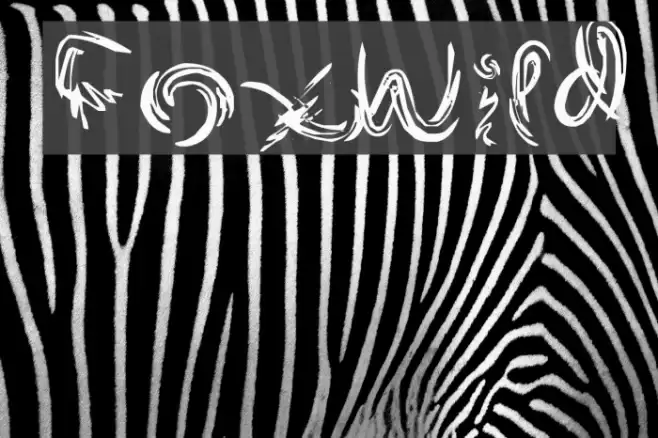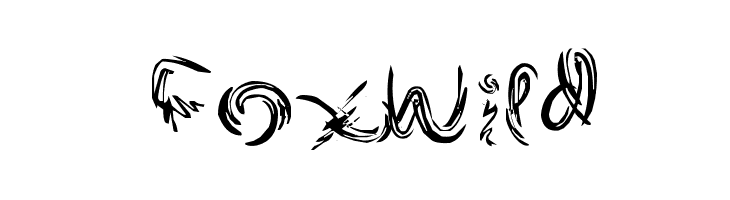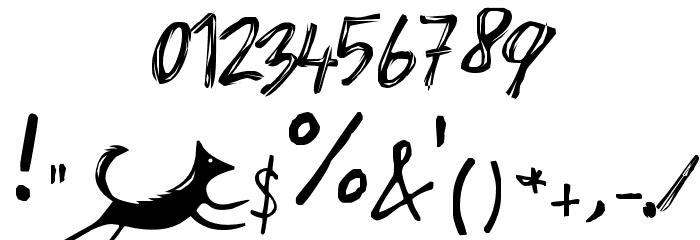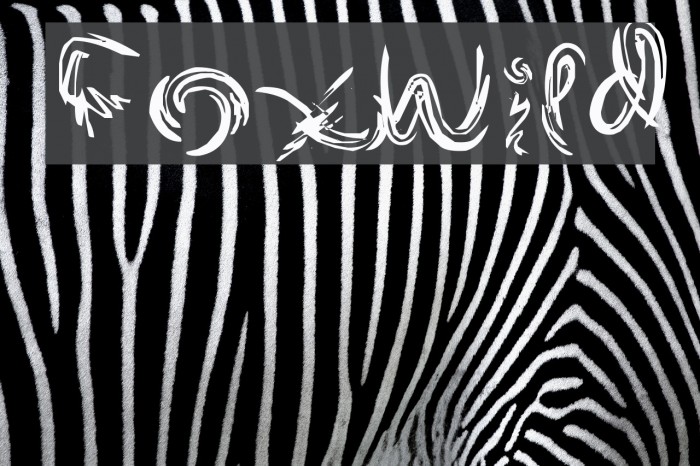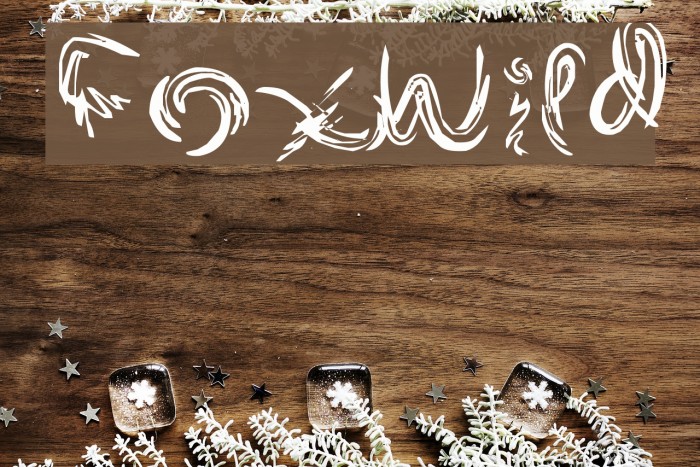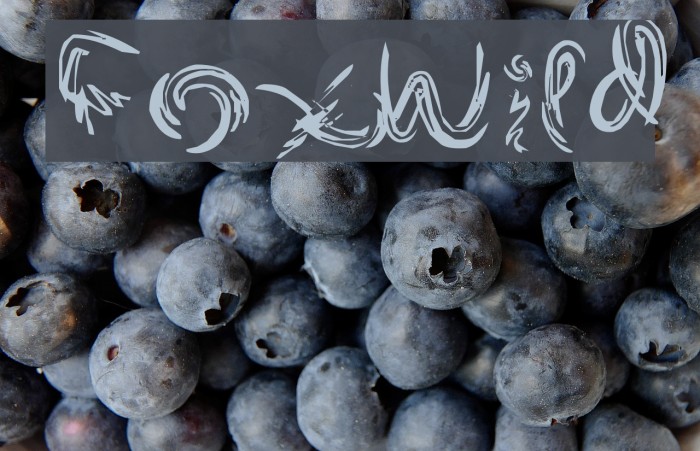
FoxWild Font
FoxWild Description
This font features a wild, dynamic style with a brush-like appearance, characterized by its bold, sweeping strokes and irregular forms. The letters have a sense of movement and energy, with varying thicknesses that create a dramatic visual impact. The uppercase and lowercase letters maintain a consistent aesthetic, with exaggerated curves and sharp angles that give the font a unique, artistic flair. Numbers and special characters follow the same expressive style, making the font suitable for creative and unconventional designs.
A bold, brush-style font with dynamic, sweeping strokes and artistic flair from Uncategorized fonts.